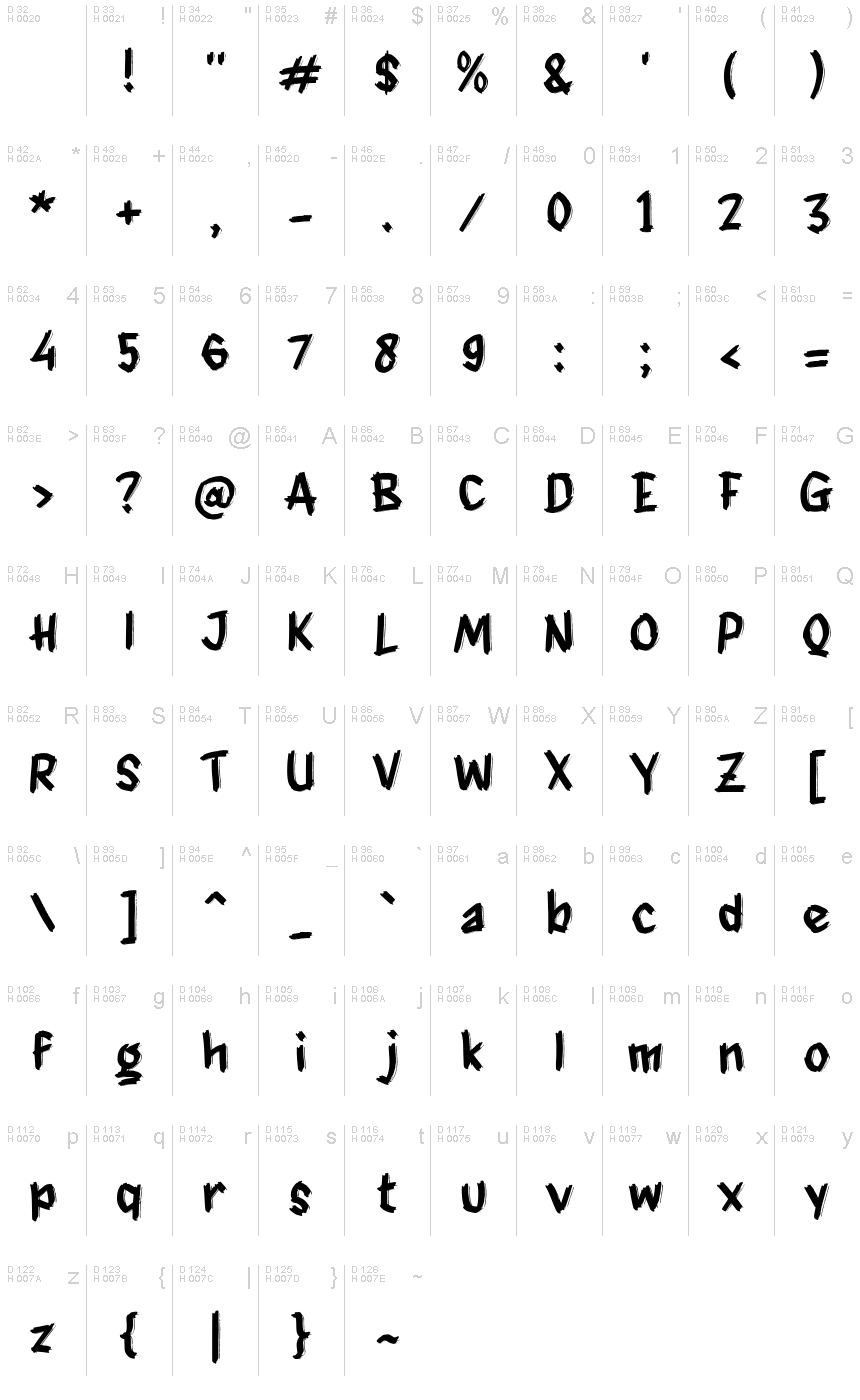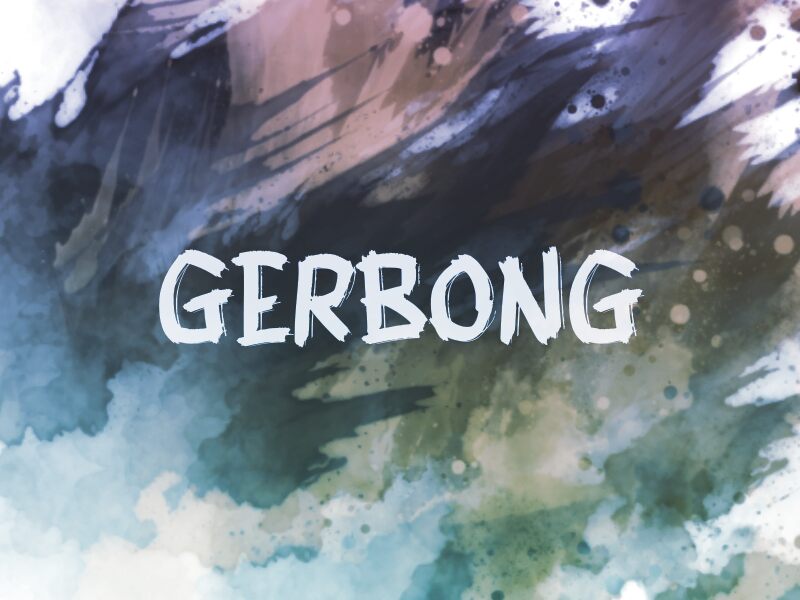
GERBONG
Gerbong - a unique, trAsh-inspired script font that commands attention. Its bold, unrestrained strokes exude a raw, edgy energy, defying traditional conventions. This font is a typographic rebel, embracing imperfections and celebrating the beauty in the unconventional.
Gerbong's unconventional style lends itself exceptionally well to eye-catching designs, from punk-inspired album covers to avant-garde fashion editorials. Its dynamic character can breathe new life into bold, rebellious branding, adding a touch of unapologetic flair. Whether used as a standalone display font or seamlessly integrated into a larger design, Gerbong's distinctive personality is sure to make a lasting impression.